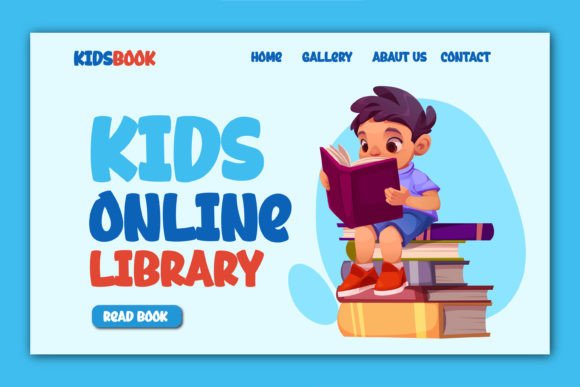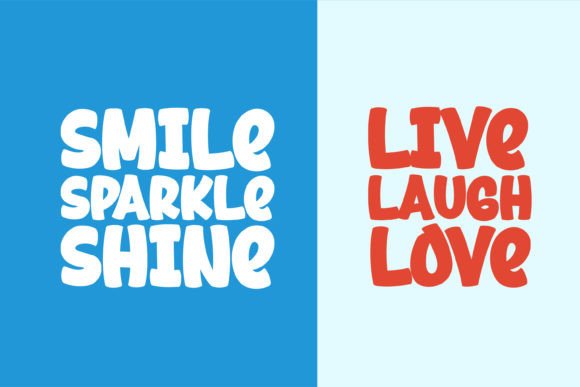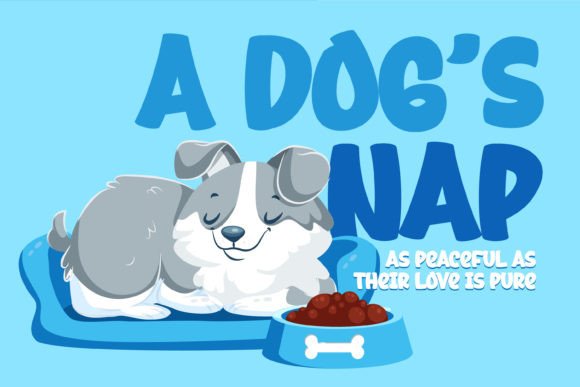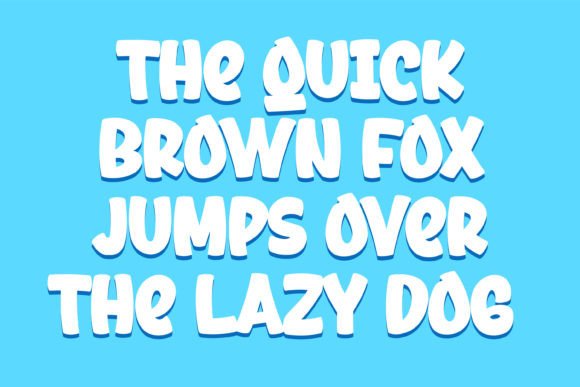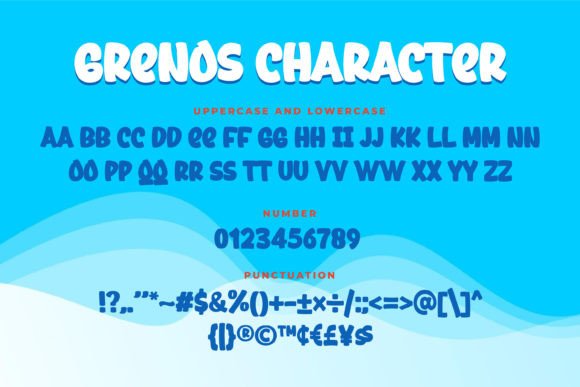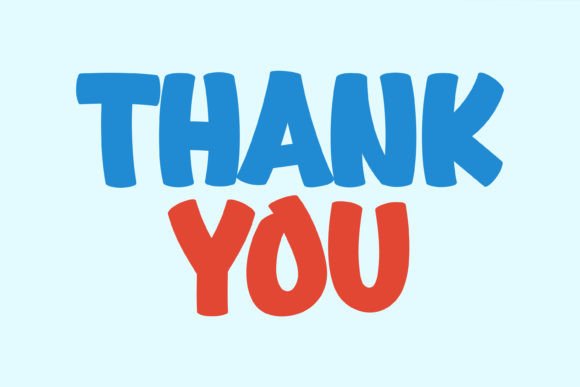
Introducing Grenos: The Playful Display Font That Brings Energy to Your Designs
In the world of typography, fonts play a crucial role in conveying the tone and personality of a brand or design. When it comes to creating eye-catching and engaging visuals, a well-crafted font can make all the difference. This is where Grenos comes in – a bold, dynamic, and playful display font that’s designed to bring a fresh burst of energy to your designs.
The Unique Characteristics of Grenos
Grenos is more than just a font – it’s an experience. With its fun-loving personality and bold shapes, this font is perfect for projects that need to stand out from the crowd. Whether you’re creating posters, packaging, or branding materials, Grenos adds a lively and creative touch to every piece. Its unique characteristics make it an ideal choice for designers and crafters looking to add a bit of whimsy to their work.
Key Features of Grenos
- Bold and Dynamic Shapes: Grenos features bold, dynamic shapes that are sure to grab attention. Its sturdy lines and curves create a sense of movement and energy, making it perfect for designs that need to pop.
- Playful Personality: This font has a fun-loving personality that’s infectious. It’s perfect for designs that require a bit of whimsy and playfulness, such as children’s products, games, or entertainment-related projects.
- Versatile: Grenos is a versatile font that can be used in a variety of design applications, from posters and packaging to branding and advertising.
- Easy to Read: Despite its bold and dynamic shapes, Grenos is surprisingly easy to read, making it perfect for headlines, titles, and short paragraphs of text.
Use Cases for Grenos
Grenos is a versatile font that can be used in a variety of design applications. Here are some use cases where Grenos really shines:
- Posters and Flyers: Use Grenos to create eye-catching posters and flyers that grab attention and draw people in.
- Packaging Design: Add a playful touch to your packaging designs with Grenos. Its bold shapes and fun personality make it perfect for product packaging.
- Branding and Identity: Use Grenos to create a unique and memorable brand identity. Its playful personality and bold shapes make it perfect for logos, business cards, and other branding materials.
- Digital Media: Grenos is also perfect for digital media, such as social media graphics, video titles, and blog posts.
Tips for Using Grenos Effectively
To get the most out of Grenos, here are some tips for using it effectively:
- Use it as a Headline Font: Grenos is perfect for headlines and titles. Use it to grab attention and draw people into your design.
- Experiment with Colors: Grenos looks great in bold, bright colors. Experiment with different color combinations to find the one that works best for your design.
- Pair it with Other Fonts: Grenos pairs well with other fonts, especially sans-serif fonts. Experiment with different font combinations to find the one that works best for your design.
In conclusion, Grenos is a playful display font that’s designed to bring energy and creativity to your designs. With its bold shapes, fun personality, and versatility, it’s perfect for a wide range of design applications. Whether you’re a designer, crafter, or DIY enthusiast, Grenos is a great addition to your font library. So why not give it a try and see how it can elevate your designs?